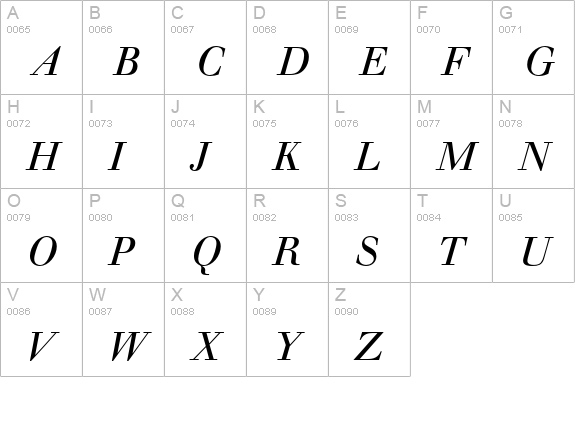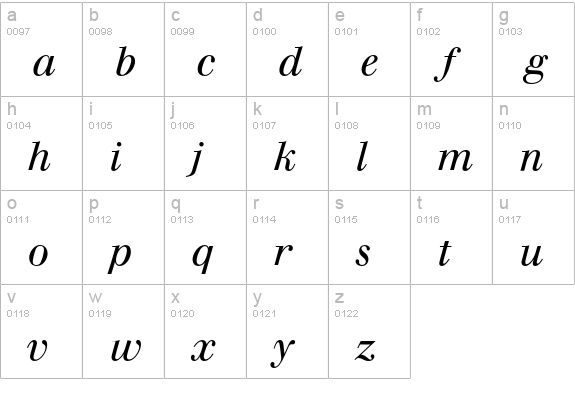
Berthold Walbaum Book Italic Font Details
Berthold Walbaum Book Italic is a comfortable, highly readable, italic variant in the Berthold typeface family \xE2\x80\x94 well suited to long-form body text, articles, and editorial content.
Berthold Walbaum Book Italic font is a mesmerizing typeface that exudes elegance and sophistication. With its delicate and slanted characters, this font adds a touch of grace and charm to any design project. Whether you are creating a wedding invitation, a magazine layout, or a branding logo, Berthold Walbaum Book Italic font will effortlessly elevate your work to a new level of refinement. The smooth curves and subtle slant of this font create a sense of fluidity and movement, making it incredibly pleasing to the eye. The meticulous attention to detail in each character showcases the expertise of its designer, Berthold Walbaum. The subtle variations in stroke width give the letters a sense of depth and dimension, ensuring that they captivate the reader's attention. One of the most remarkable aspects of Berthold Walbaum Book Italic font is that it is freely available to download at FontsMarket.com. This means that designers and typographers can access this exceptional typeface without any cost or restrictions. The generosity behind this offer allows creative professionals to unleash their creativity without any limitations, making Berthold Walbaum Book Italic font a valuable asset for both personal and commercial projects. Furthermore, the versatility of Berthold Walbaum Book Italic font cannot be overstated. Its timeless design makes it suitable for a wide range of applications, from print to digital media. Whether you are designing a classic book cover, a contemporary website, or a vintage-inspired poster, this font seamlessly adapts to any aesthetic, effortlessly enhancing the overall visual appeal. In conclusion, Berthold Walbaum Book Italic font is a stunning typeface that will undoubtedly elevate your designs to new heights. Its elegant and sophisticated appearance, combined with its availability as a free download at FontsMarket.com, makes it an invaluable resource for designers and typographers. Embrace the beauty and versatility of Berthold Walbaum Book Italic font, and let your creativity soar.